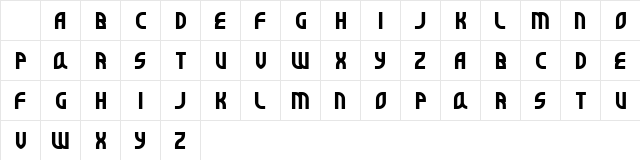
Complete SuperBefok Regular glyph index. Displaying only characters natively supported by SuperBefok Regular font.
SuperBefok is a composed and adaptable typeface that performs quietly and consistently across a wide range of design contexts.